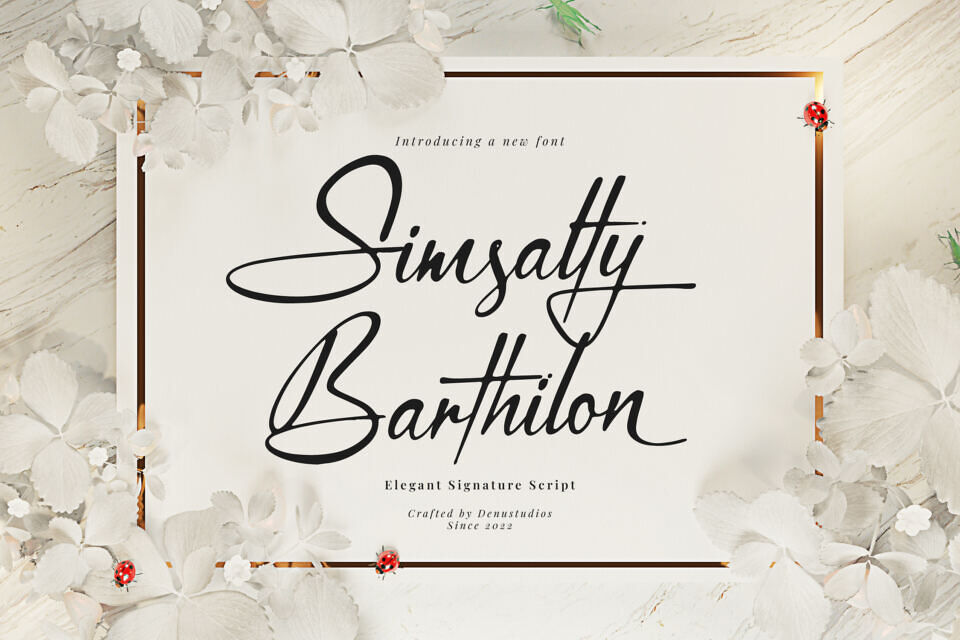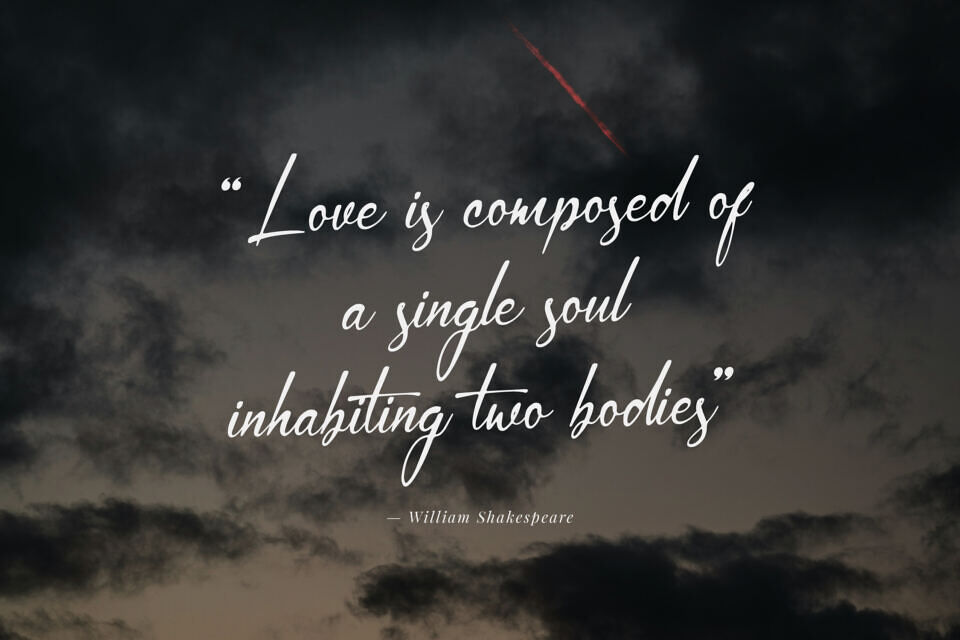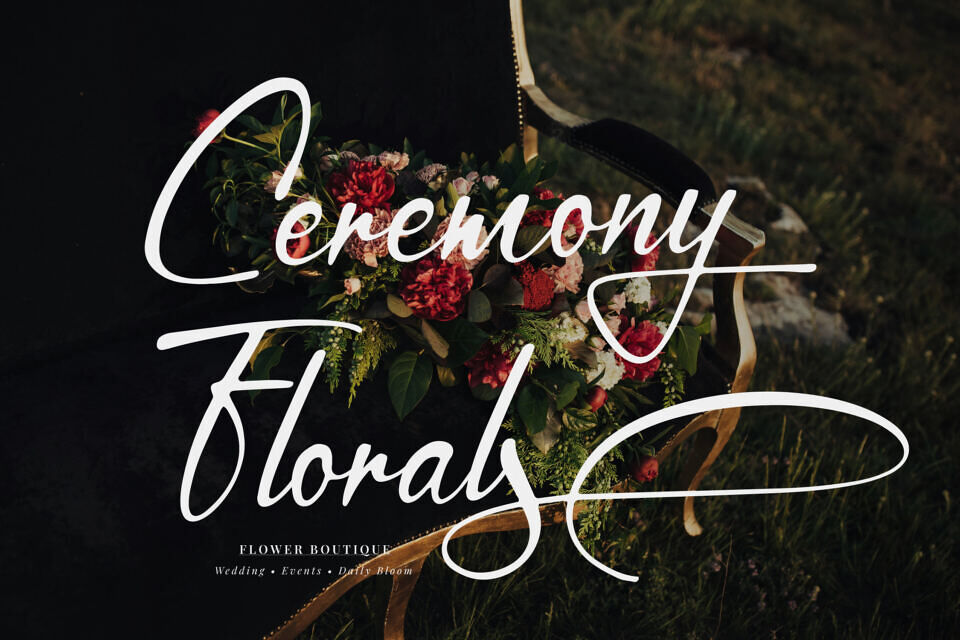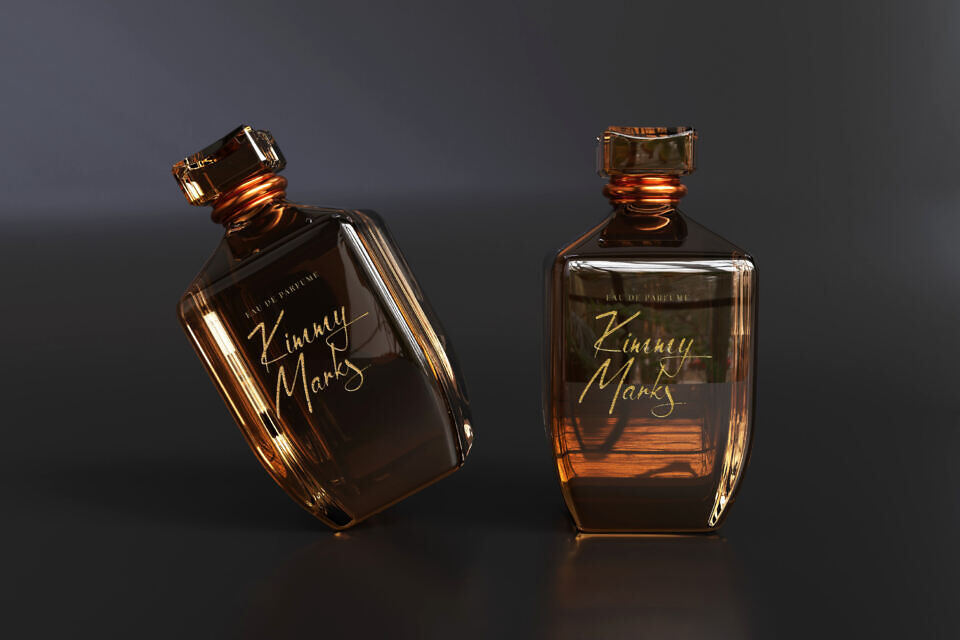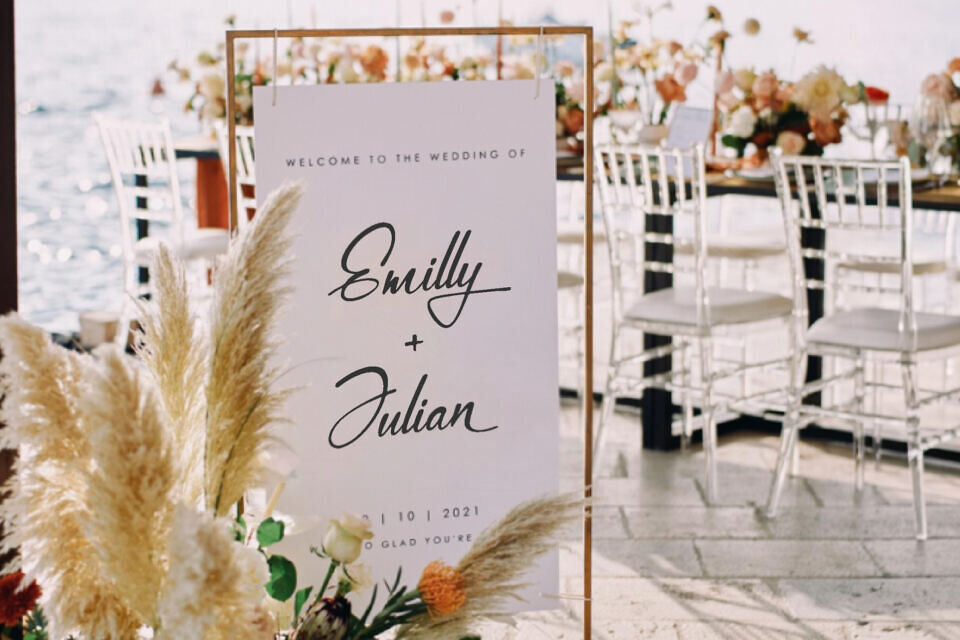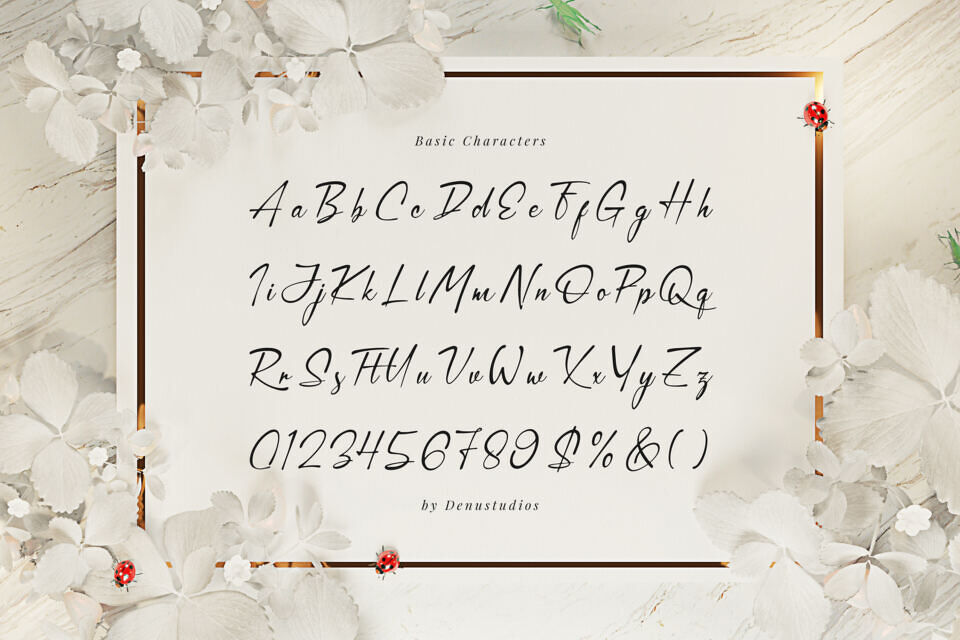
Simsalty Barthilon Font
Infuse your projects with a touch of bespoke luxury using Simsalty Barthilon, an exquisite signature script designed to mimic authentic, high-end handwriting. Featuring fluid, expressive strokes and elegant flourishes, this typeface captures the effortless grace of a hand-signed penmanship.
It is the quintessential choice for professional branding, luxury wedding stationery, photography watermarks, and sophisticated editorial layouts. With its balanced rhythm and organic feel, Simsalty Barthilon elevates your designs from digital text to personal art.